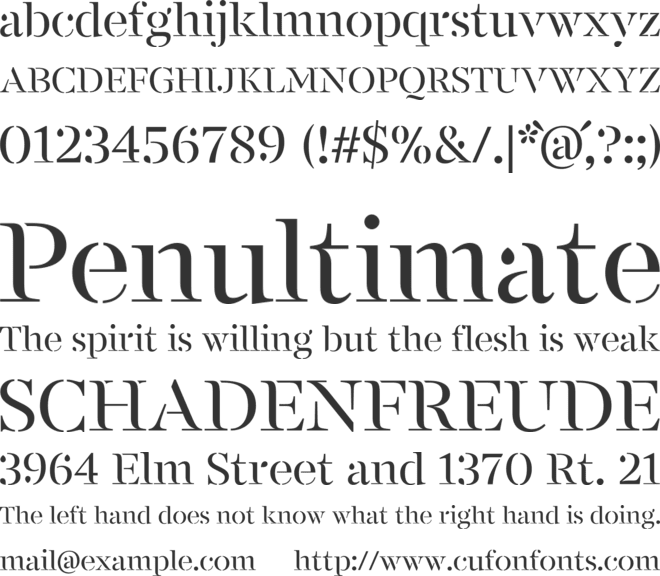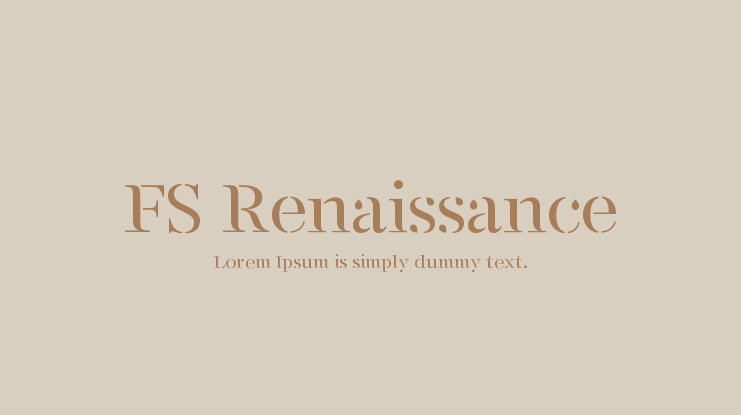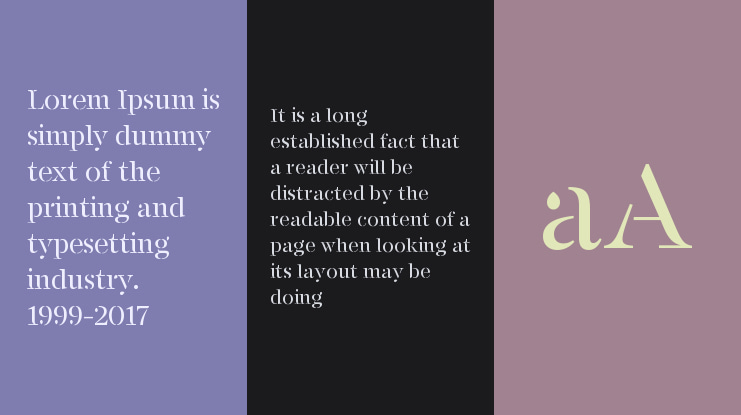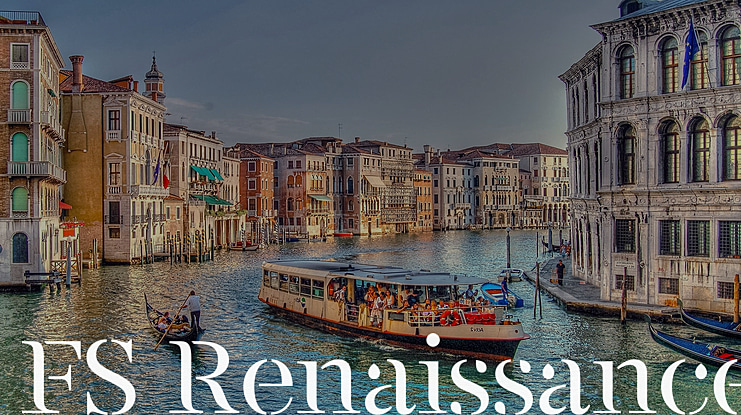
FS Renaissance is a display stencil typeface by the Monotype Studio. A collaboration between lettering artist and designer Craig Back and Creative Type Director Pedro Arilla, the single style font explores the intersection between art and design. With artist and designer working hand in hand, each letter was crafted as a standalone piece of art, while working harmoniously together as a functioning typeface.
The typeface is inspired by the Renaissance period symbolised by flourishing progress in the arts, sciences, learning, and philosophy. The typeface is not a traditional stencil design: the cuts are not rigid but interactions that are hand crafted between each element, emphasising the idea of a typeface as a piece of art or sculpture. Pedro Arilla’s aim was to take the core DNA of Craig's lettering and apply it to a typographic base with a solid internal consistency, balanced with an external elegance. Pedro and Craig worked closely together to make sure the original concept was not compromised and this is reflected in the finished design which strikes the perfect balance between functionality and art.